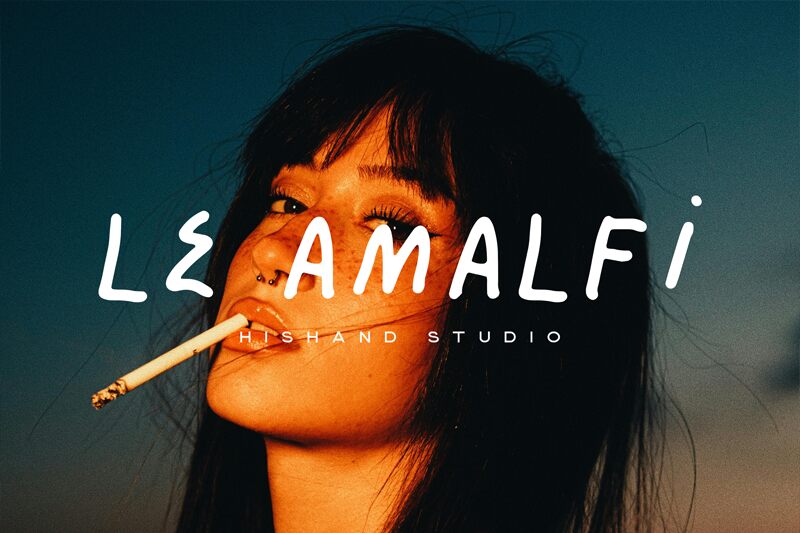
LE AMALFI Handwriting Personal Use
LE AMALFI Handwriting font by Hishand Studio is a casual handwritten typeface with an organic feel and friendly appearance. Bringing a natural feel to any text, this free handwritten font features rounded letterforms for a modern and playful effect. Additional visual interests come with the implementation of thick ascenders and descenders.
Use LE AMALFI Handwriting in visual identity design including logos, documents, business cards, labels, product packaging, as well as titles for magazines and books. Posters for events like music festivals are also applications to consider while designing with this amazing resource.